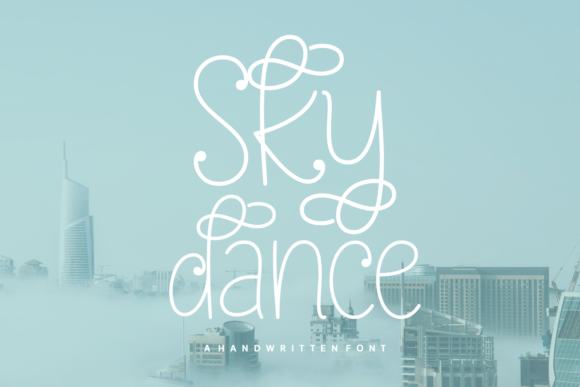
Sky Dance Font
In a world of digital expression, where words dance across the screen, there lies a font that captivates the heart and imagination - Sky Dance. A creation of Creative Fabrica Fonts, Sky Dance is not just a font, but a portal to a world of elegance and charm, where letters flow with grace and emotions find their voice.
Picture this: a love letter penned in Sky Dance, where each word is a brushstroke of romance, carrying a heartfelt message that speaks to the soul. The delicate thin characters, like whispers of affection, caress the eyes, while the sweet, curly extra swashes add a touch of playful charm, like a secret smile hidden within the text.
Sky Dance is more than a font; it's an invitation to embark on a creative journey, to breathe life into your most splendid ideas. Whether you're a designer crafting a captivating logo, a writer weaving tales of enchantment, or simply someone seeking to add a touch of elegance to their digital correspondence, Sky Dance is your perfect companion.
With its PUA encoding, Sky Dance grants you effortless access to a treasure trove of glyphs and swashes, allowing you to unleash your creativity without bounds. Experiment with different combinations, let your imagination soar, and watch as Sky Dance transforms your words into captivating visual masterpieces.
In the realm of digital aesthetics, Sky Dance stands as a beacon of sophistication and grace. Its delicate strokes and enchanting swashes weave a spellbinding tapestry of emotions, captivating your audience and leaving them spellbound.
So, embark on this creative odyssey with Sky Dance, and let your words take flight, carried on the wings of elegance and charm. Discover the magic that awaits within this font, and transform your digital creations into breathtaking works of art.